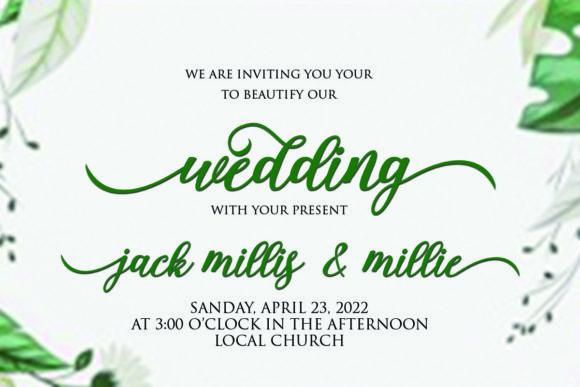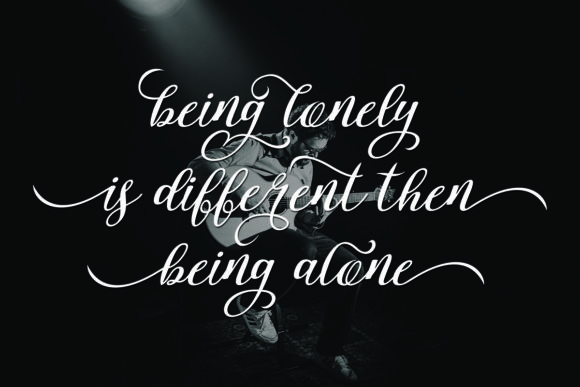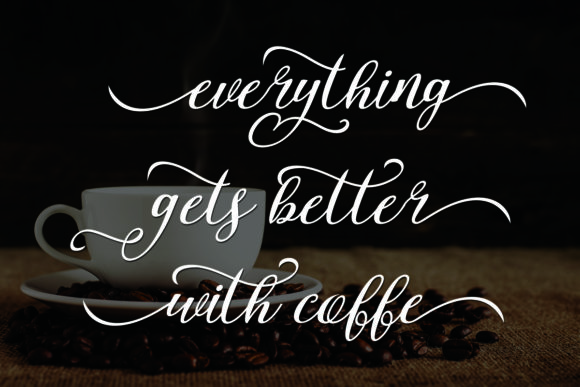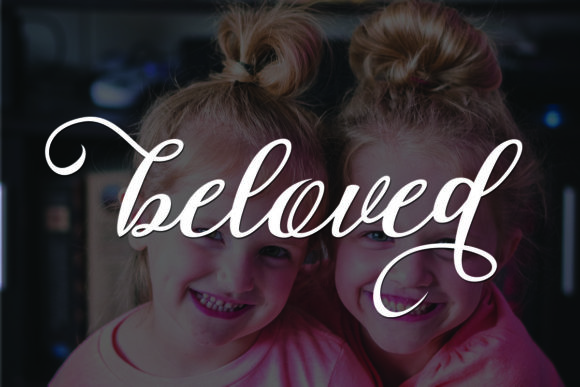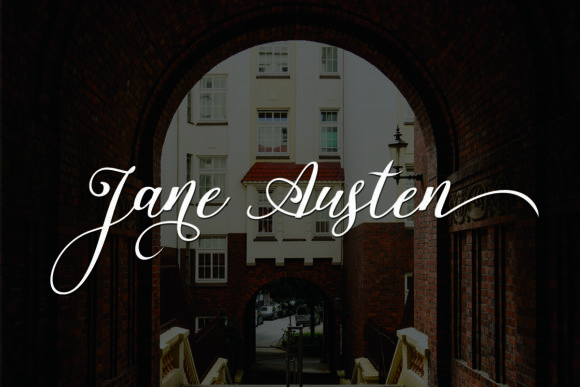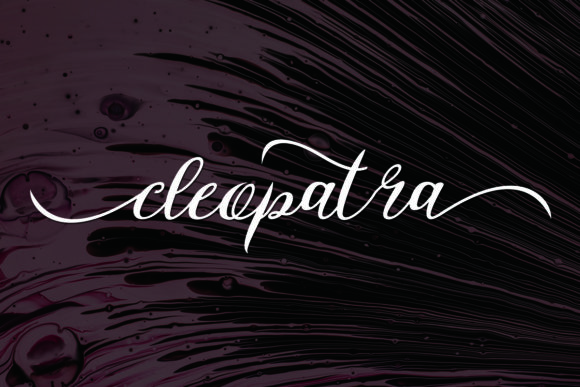
Introducing Anastasia Script Font: Elevate Your Designs with Timeless Elegance
In the world of typography, few fonts manage to capture the essence of elegance and timelessness. Anastasia Script Font is one such gem that has been making waves among designers and crafters alike. This lovely handwritten font is not just a collection of letters; it’s an invitation to bring a touch of sophistication and personality to your designs. Whether you’re crafting eye-catching logos, creating branding materials, or designing inspirational quotes, Anastasia Script stands out as the best choice.
The Unique Charm of Anastasia Script
What sets Anastasia Script apart is its unique and beautiful touch in every letter. In an era where uniformity and digital precision often dominate design, Anastasia Script brings a refreshing handcrafted feel that can make your designs come alive. Each letterform is meticulously designed to contribute to a cohesive yet distinct aesthetic that captures attention and evokes emotion.
Anastasia Script is not just limited to logos or quotes; its versatility makes it suitable for a wide range of design projects. From wedding invitations and personal branding to packaging and digital marketing materials, this font can elevate any text to a statement piece. Its elegance and charm are versatile enough to fit into various themes and styles, making it a valuable addition to any designer’s toolkit.
Why Choose Anastasia Script Font?
So, what makes Anastasia Script the go-to font for designers and crafters? Here are a few compelling reasons:
- Timeless Appeal: Unlike trends that fade with time, Anastasia Script boasts a classic charm that remains relevant across years and design trends.
- Versatility: Its adaptability to various design projects makes it a valuable asset for any designer.
- Unique Aesthetic: The handcrafted feel of Anastasia Script adds a personal touch to your designs, setting them apart from the crowd.
Tips for Using Anastasia Script Effectively
To make the most of Anastasia Script, consider the following tips:
- Pair it with Simplicity: Balance the ornateness of the font with simpler elements to avoid overwhelming the viewer.
- Experiment with Colors: While the font itself is stunning, experimenting with different colors can further enhance its beauty and adaptability.
- Utilize Swashes: Don’t hesitate to use the swashes and glyphs available. They can add a dynamic and artistic flair to your text.
Anastasia Script Font is more than just a collection of letters; it’s a design tool that brings elegance, versatility, and personality to your projects. Its timeless appeal, coupled with the practical benefits of PUA encoding, makes it an indispensable asset for designers and crafters looking to leave a mark. Whether you’re aiming to create stunning logos, compelling branding, or captivating quotes, Anastasia Script is your gateway to designs that resonate and inspire.
Embrace the beauty of Anastasia Script and discover a world where your designs come alive with a touch of timeless elegance.